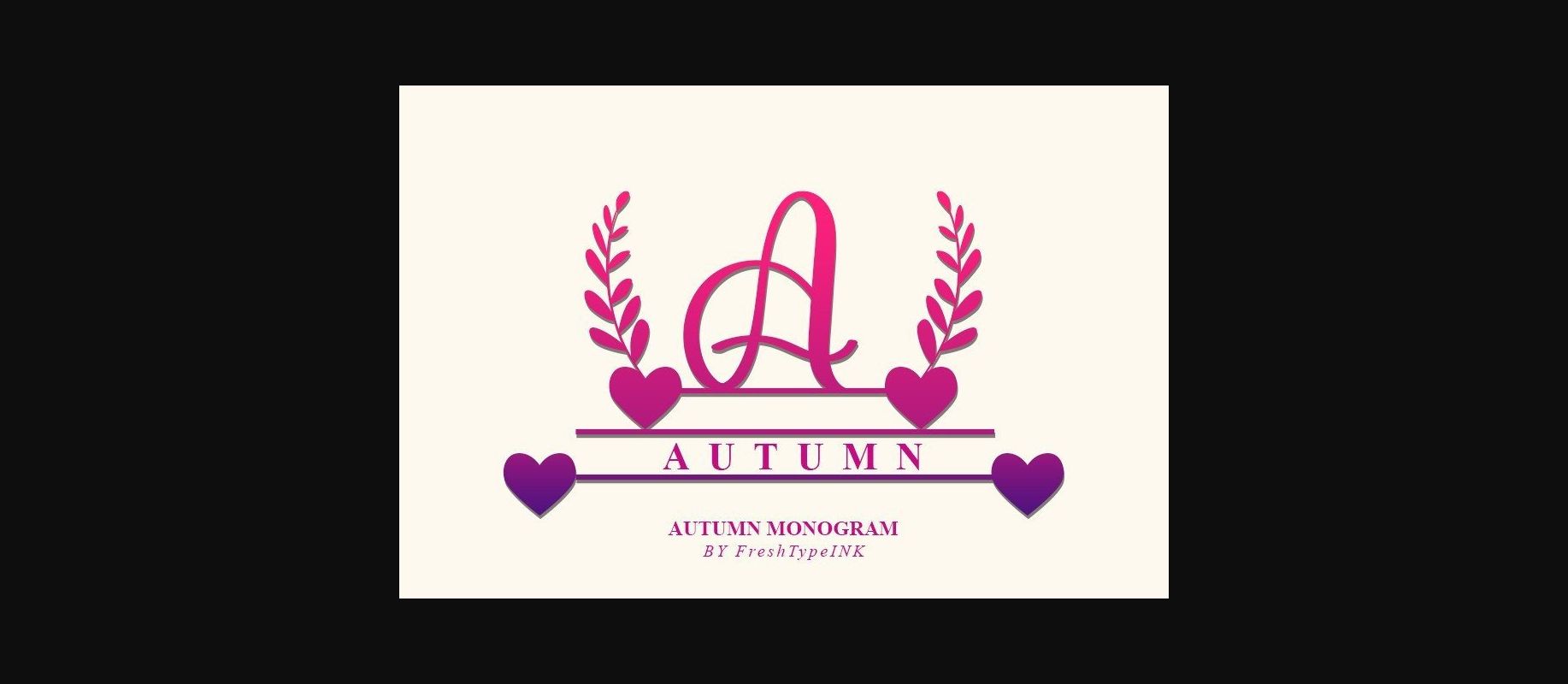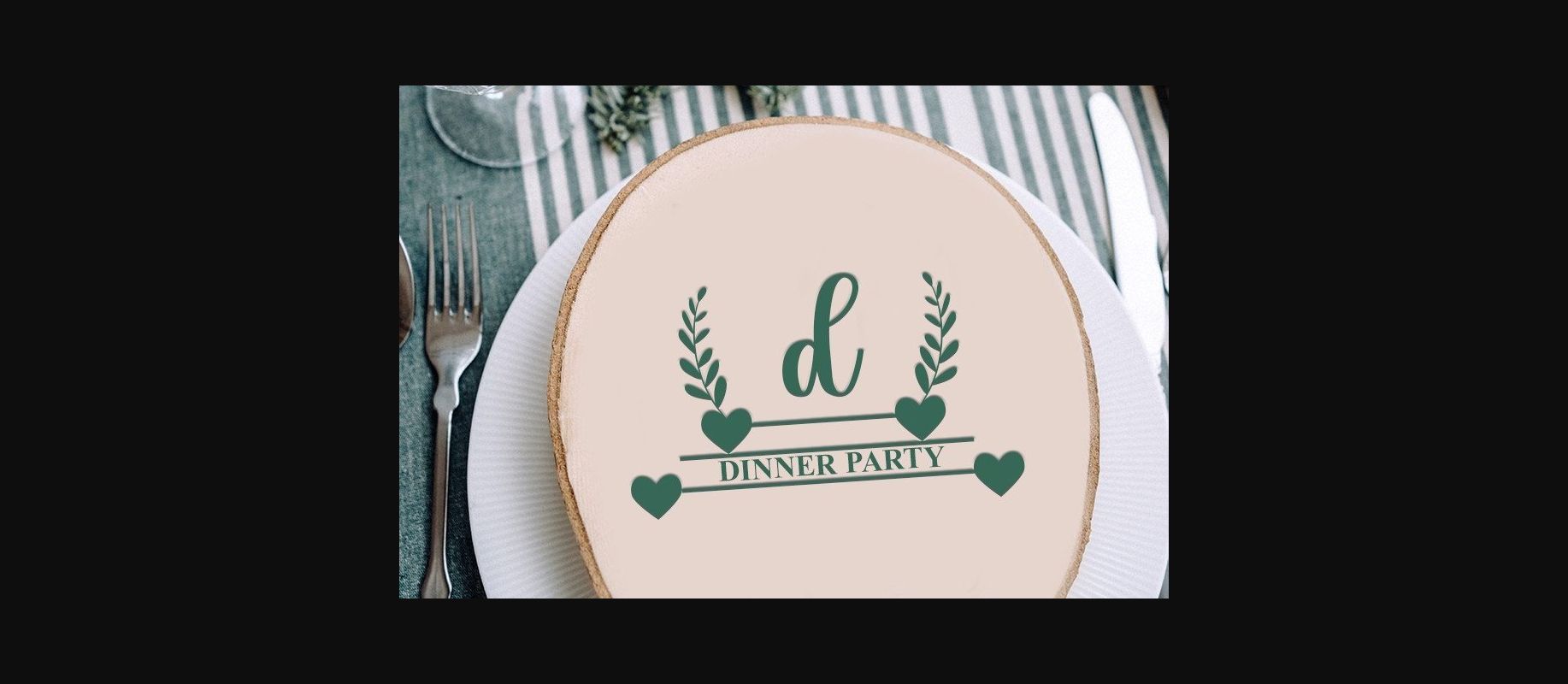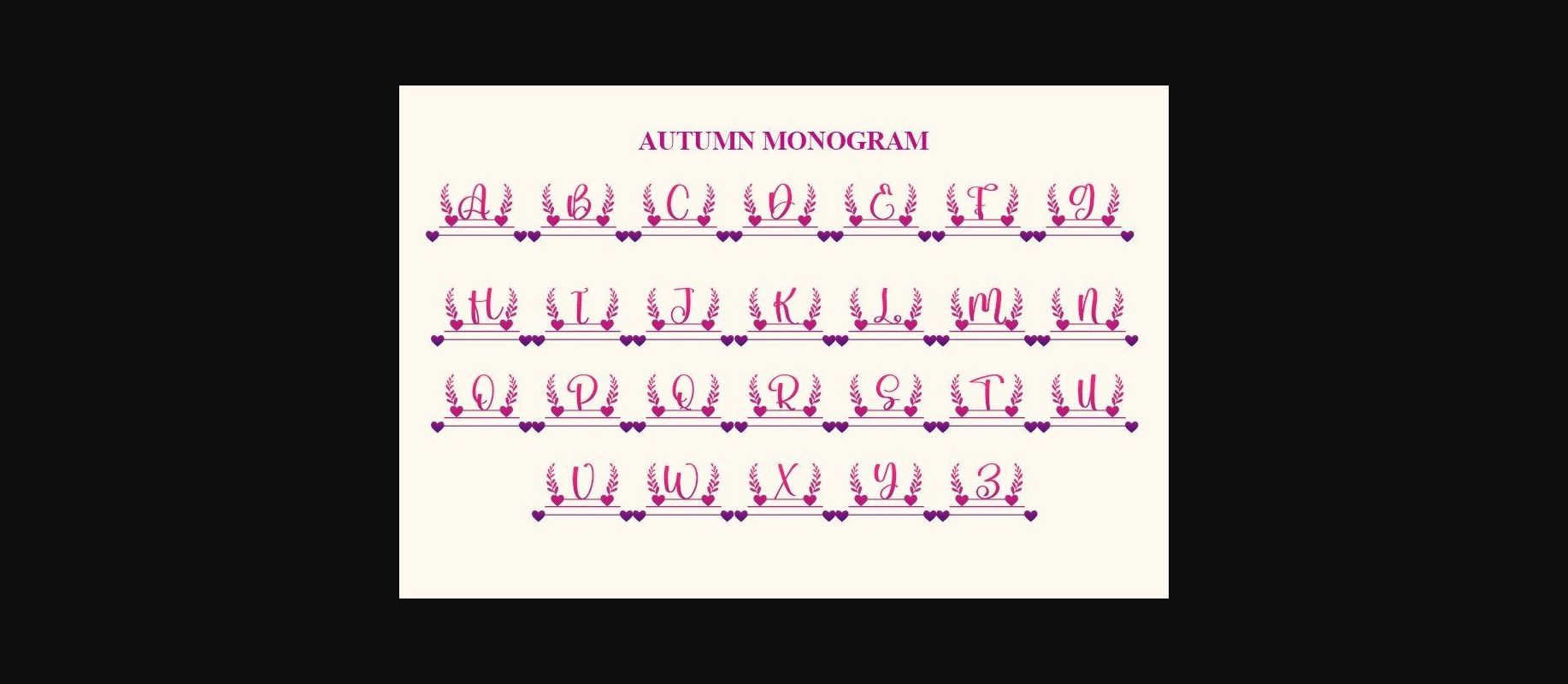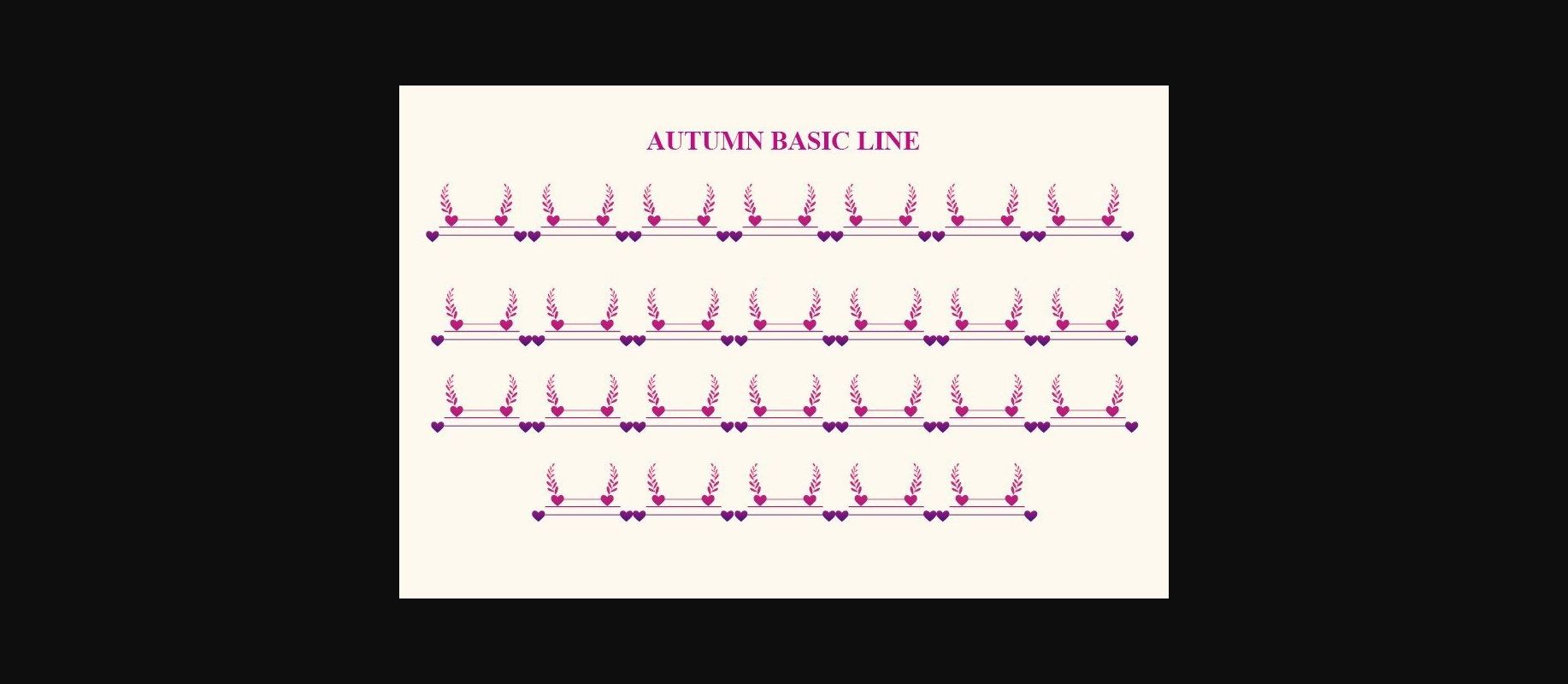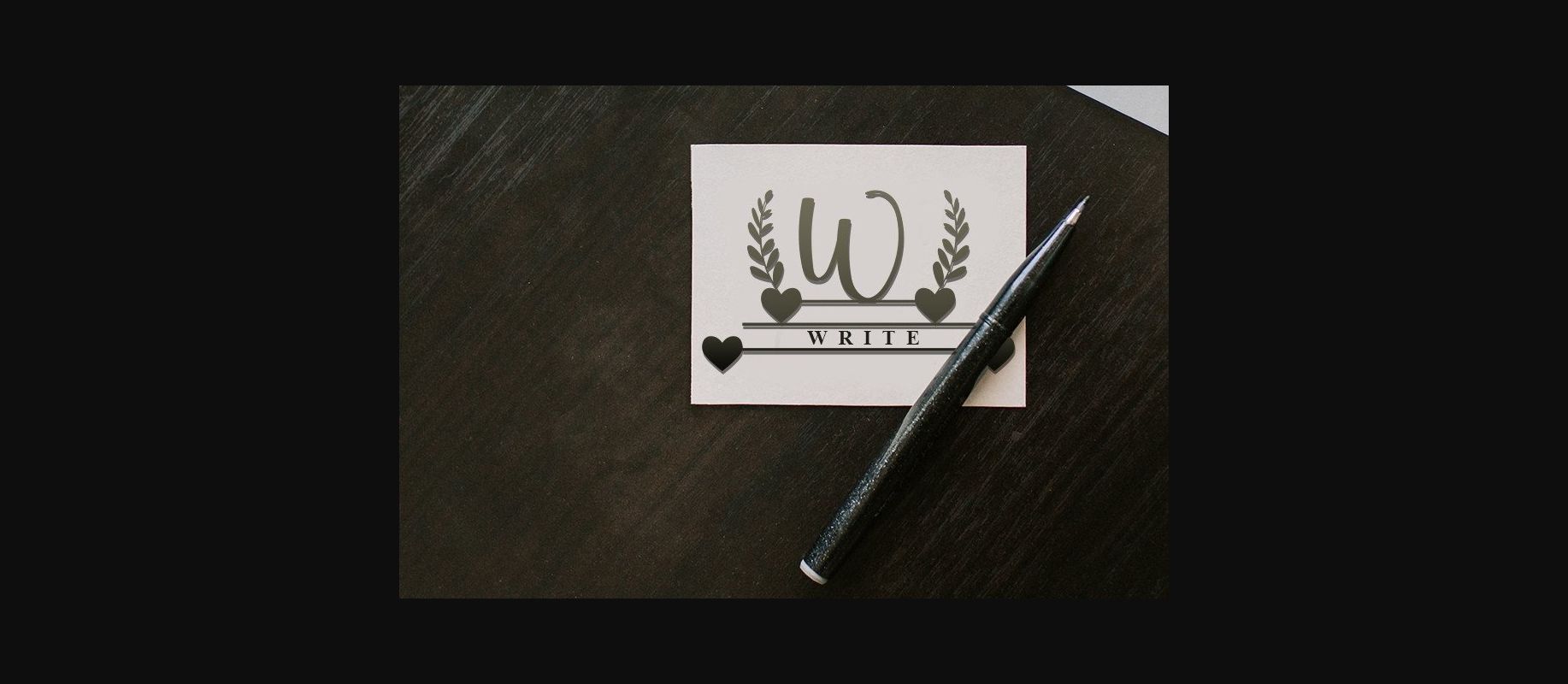
About Autumn Monogram Font
Autumn Monogram is a beautiful and refined monogram font. Classy and modern, it is perfect for logos, branding, invitations, stationery, wedding designs, social media posts, and much more!